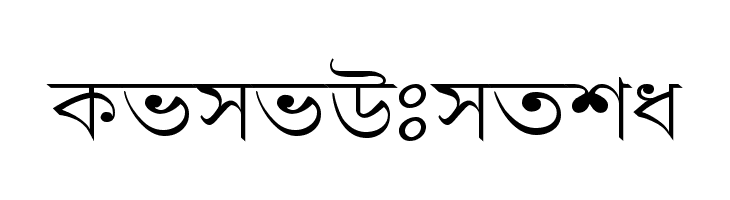
• LipiExpand Fuentes
• LipiNormal Fuentes
• Lipograf Regular Fuentes
( Alice Wolski - www.grafikly.fr )
A playful, bold handwritten font with smooth, flowing curves.
• Lipops Fuentes
A playful, whimsical font with rounded, curly elements and a lively style.
• Lipops Fuentes
( Fonts by Typer Std )
A playful, hand-drawn font with bubbly, whimsical characters.
• Lippen Regular Fuentes
• Lipsiantiqua-Regular Fuentes
A classic serif font with elegant curves and a modern touch.
• Lipstick Rage Regular Fuentes
A bold, textured font with a hand-painted, expressive style.
• Lipstick Traces Fuentes
( Fonts by Typearound )
A bold, distressed font resembling lipstick smudges, perfect for dramatic and playful designs.
• Lipsum Fuentes
A lively, handwritten font with fluid and dynamic strokes.